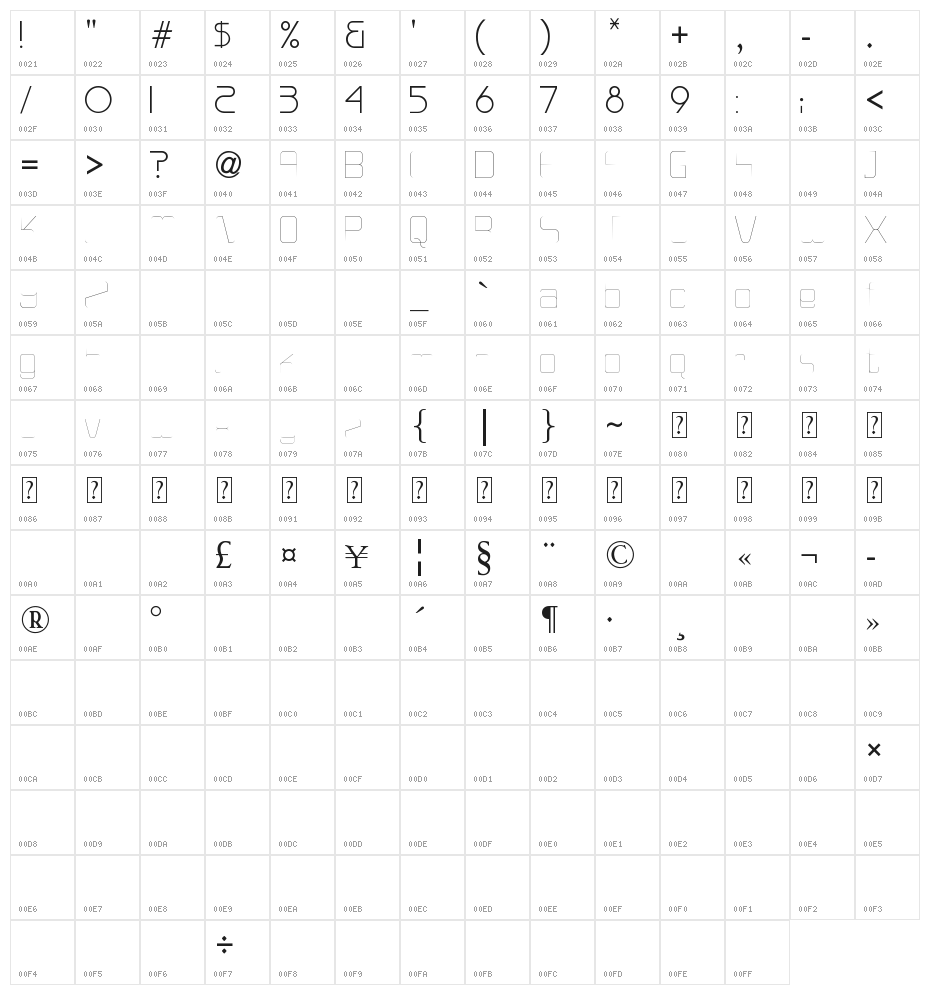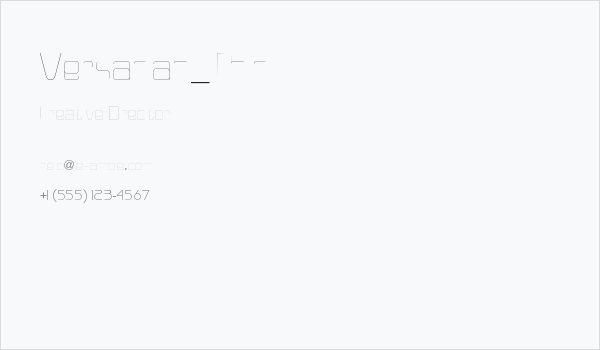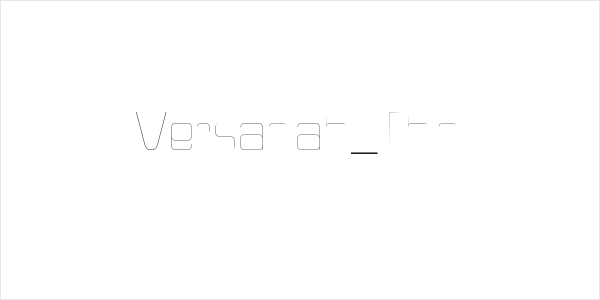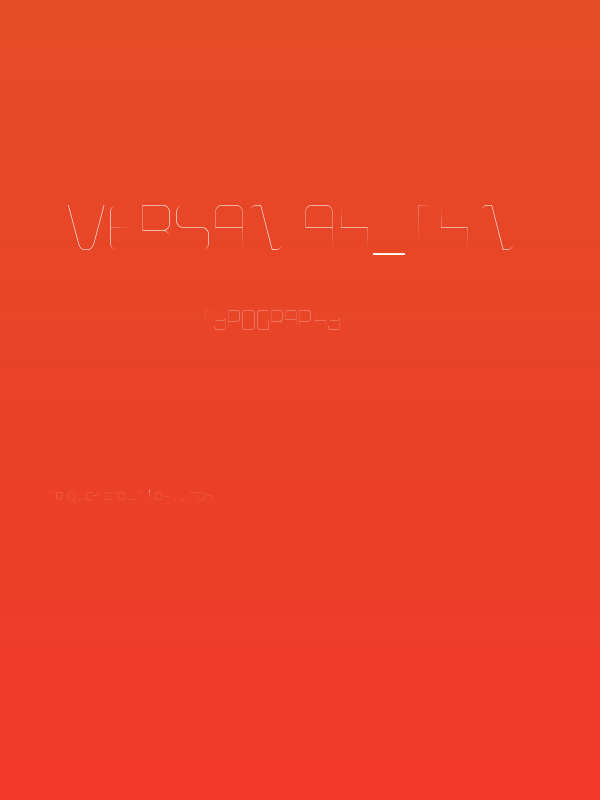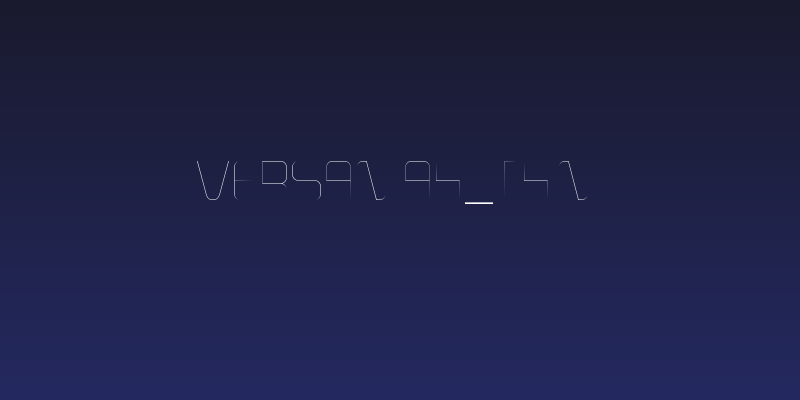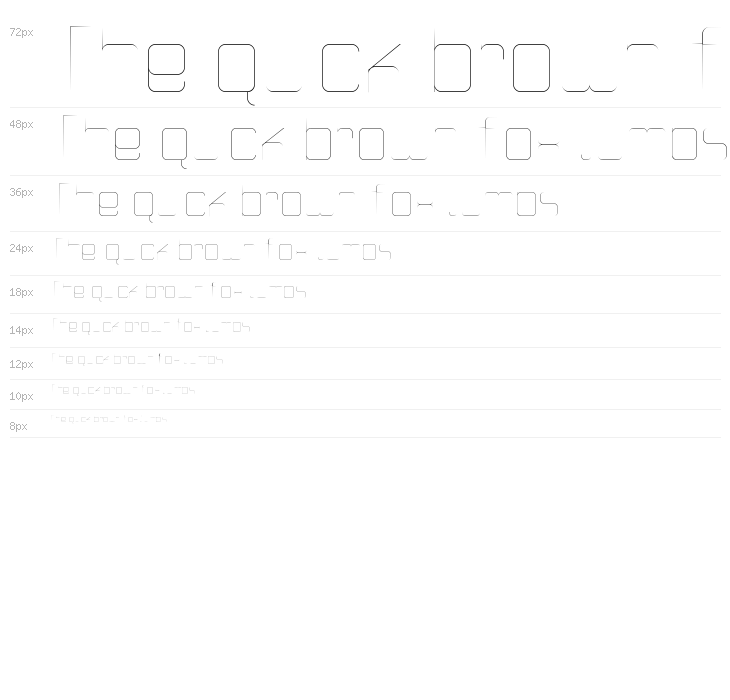
Versaniah_Thin Font
Versaniah_Thin Description
This font presents a sleek and modern aesthetic with its thin, geometric lines and minimalistic design. Each character is crafted with precision, featuring clean edges and a uniform stroke width that conveys a sense of elegance and sophistication. The uppercase and lowercase letters maintain a consistent style, emphasizing clarity and readability. The numerals and special characters are designed to complement the alphabet, ensuring a cohesive look across all text. This font's airy and open feel makes it ideal for contemporary design projects where a light and unobtrusive typeface is desired.
| Use Case | Headlines, Logos, Minimalist Designs |
| Proposed Projects | Ideal for modern branding, minimalist posters, tech-related designs, and clean web interfaces. |